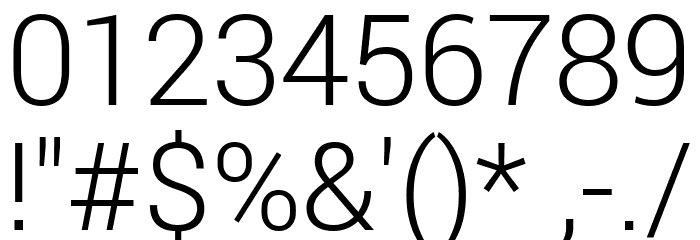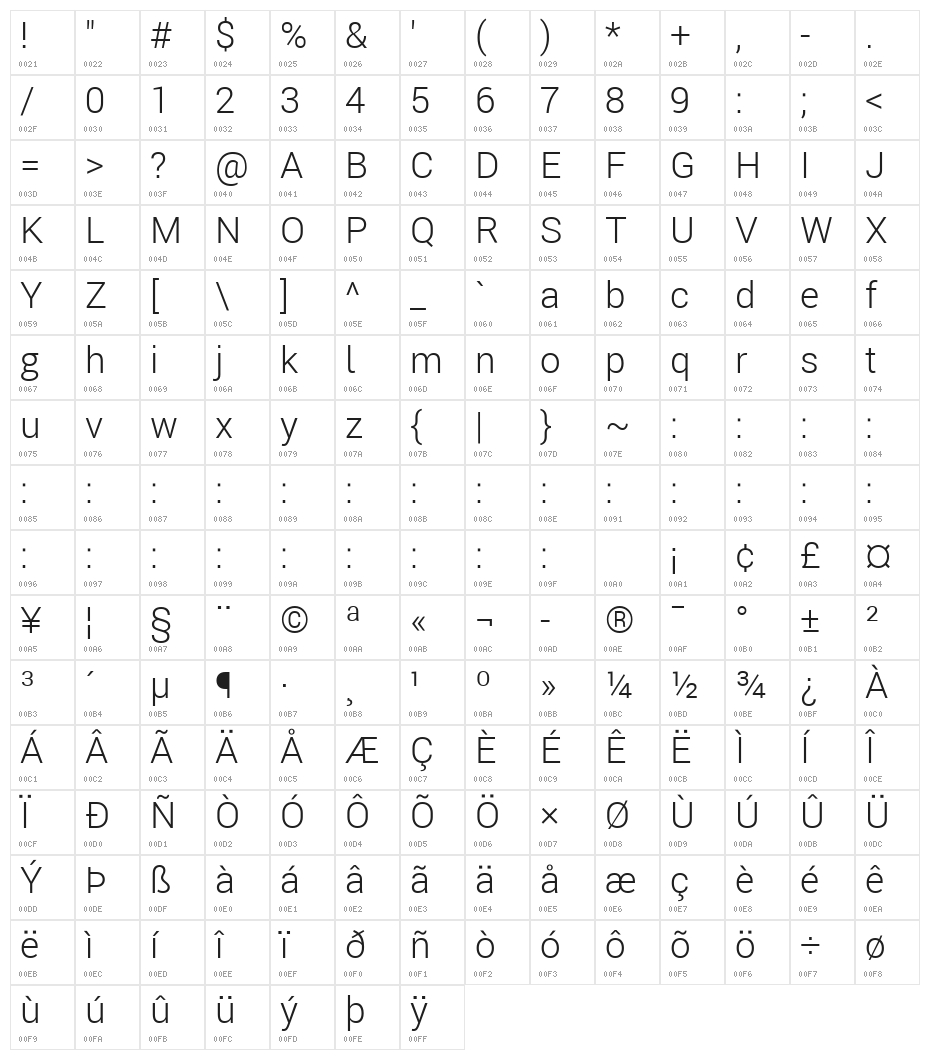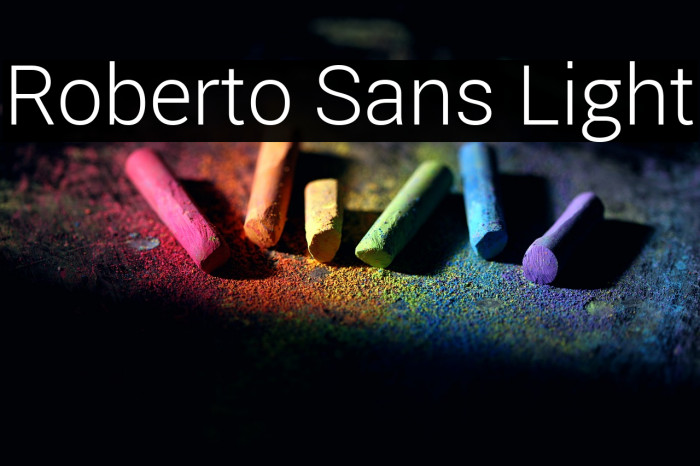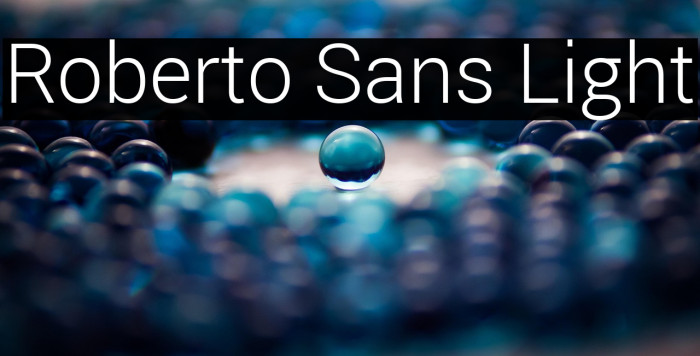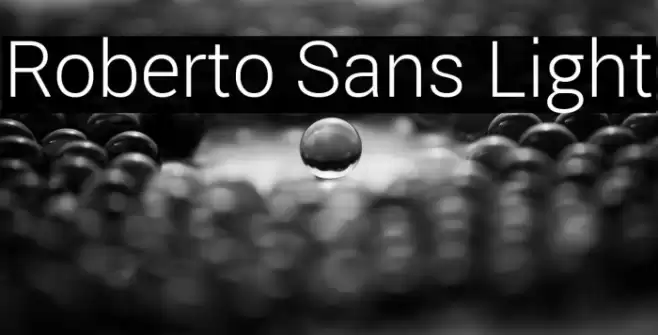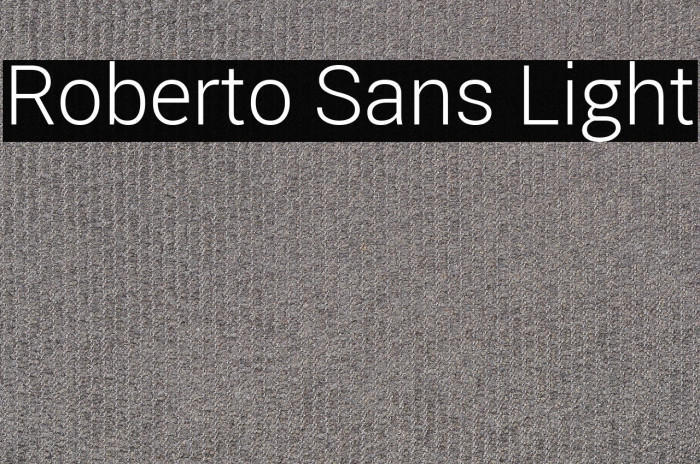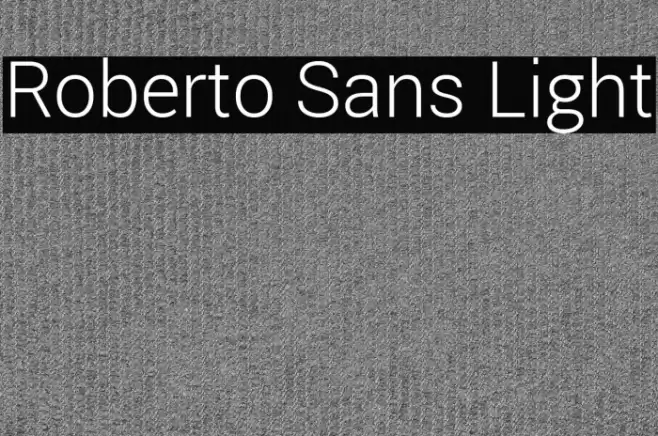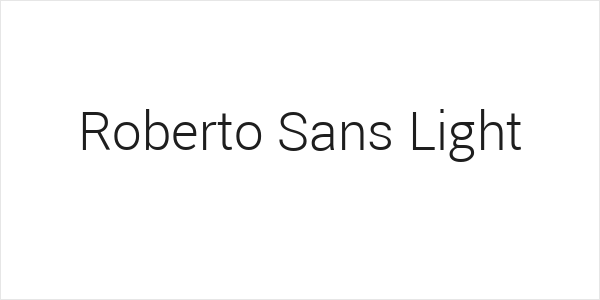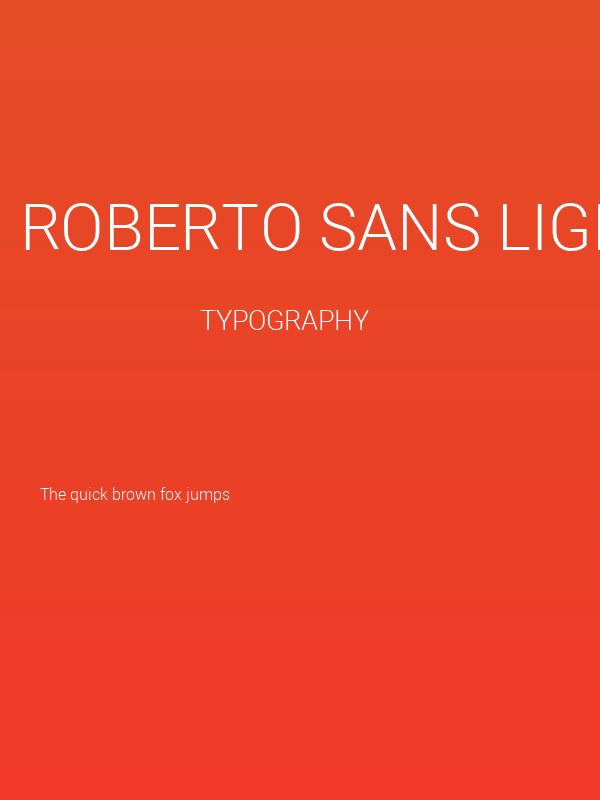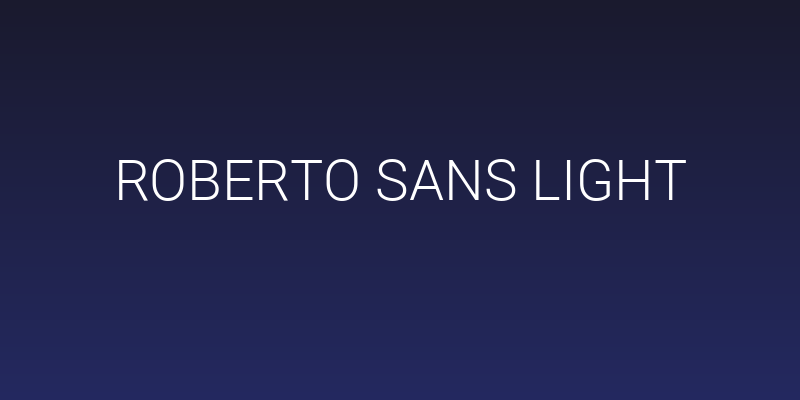
Roberto Sans Light Font
Roberto Sans Light Description
This font exhibits a clean, modern sans-serif design with a light weight, making it ideal for a wide range of applications. The characters are well-proportioned with a uniform stroke width, contributing to its legibility and versatility. The uppercase and lowercase letters maintain a consistent style, with rounded edges that soften the overall appearance. The numerals are clear and distinct, ensuring readability in numerical data. Special characters are included, providing comprehensive support for various typographic needs. The font's simplicity and elegance make it suitable for both digital and print media.
| Proposed Projects | Ideal for web design, branding, corporate materials, and editorial content. |